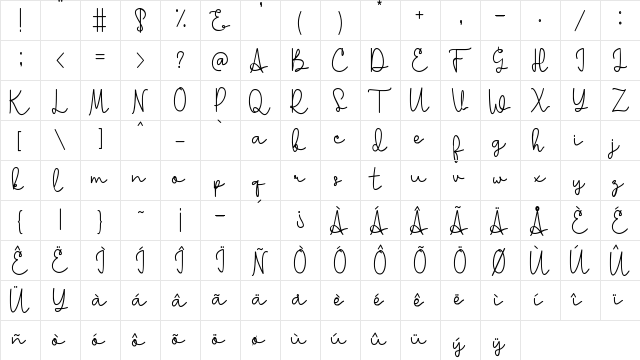
Lovely Regular
Design Context for Lovely Typeface
Lovely is a composed and adaptable typeface that performs quietly and consistently across a wide range of design contexts.